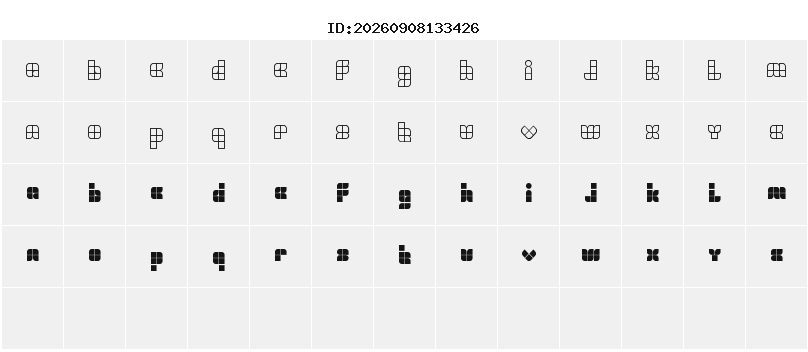
• Font Name: UNIVERSALISME
• Full Font Name: UNIVERSALISME
• Version: Version 1.00 October 14, 2011, initial release
About UNIVERSALISME.ttf
UNIVERSALISME.ttf is a modern, elegant sans-serif font designed for ultimate readability and visual harmony. Perfect for branding, headlines, web design, and print materials.